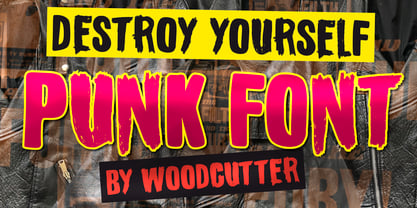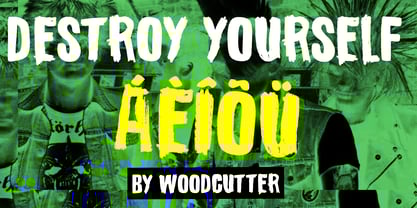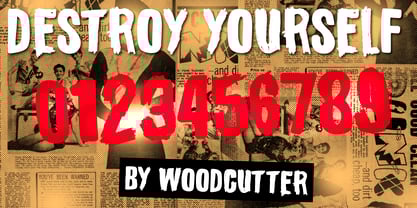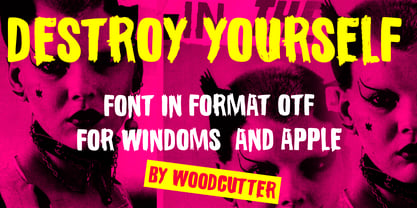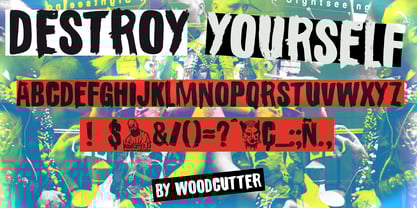
Destroy Yourself
by Woodcutter
The Destroy Yourself Font Family was designed by Jordi Manero and published by Woodcutter. Destroy Yourself contains 1 styles. More about this family
"Destroy Yourself" is an uppercase typeface with full accent support, designed to capture the raw, visceral, and furious energy of true punk spirit. Every character looks torn, scratched, or aggressively slashed with a thick marker, as if it were created in a moment of creative rage on the wall of an underground club. Its irregular shapes, filled with small imperfections and rough edges, convey a sense of urgency and rebellion—like a visual scream demanding instant attention. This typeface doesn’t try to be pretty or refined; its purpose is to provoke, challenge, and break away from any complacent aesthetic. "Destroy Yourself" is built to communicate tension, noise, and attitude. Its graphic feel recalls old photocopied fanzines, hand-drawn demo tape covers, and the gritty street visuals of classic punk, where the roughness was part of the beauty. It’s ideal for concert posters, album covers, promotional artwork for punk, hardcore, or garage bands, and any project that needs to convey aggression, controlled chaos, and a bold, rebellious identity. Its visual personality thrives in large, direct compositions where it can shout without restraint. With "Destroy Yourself", every word feels like a roar, every sentence vibrates with electricity, and every layout becomes a graphic act of self-assertion. It’s not just a typeface; it’s a statement, a punchy message, and an invitation to break the rules.